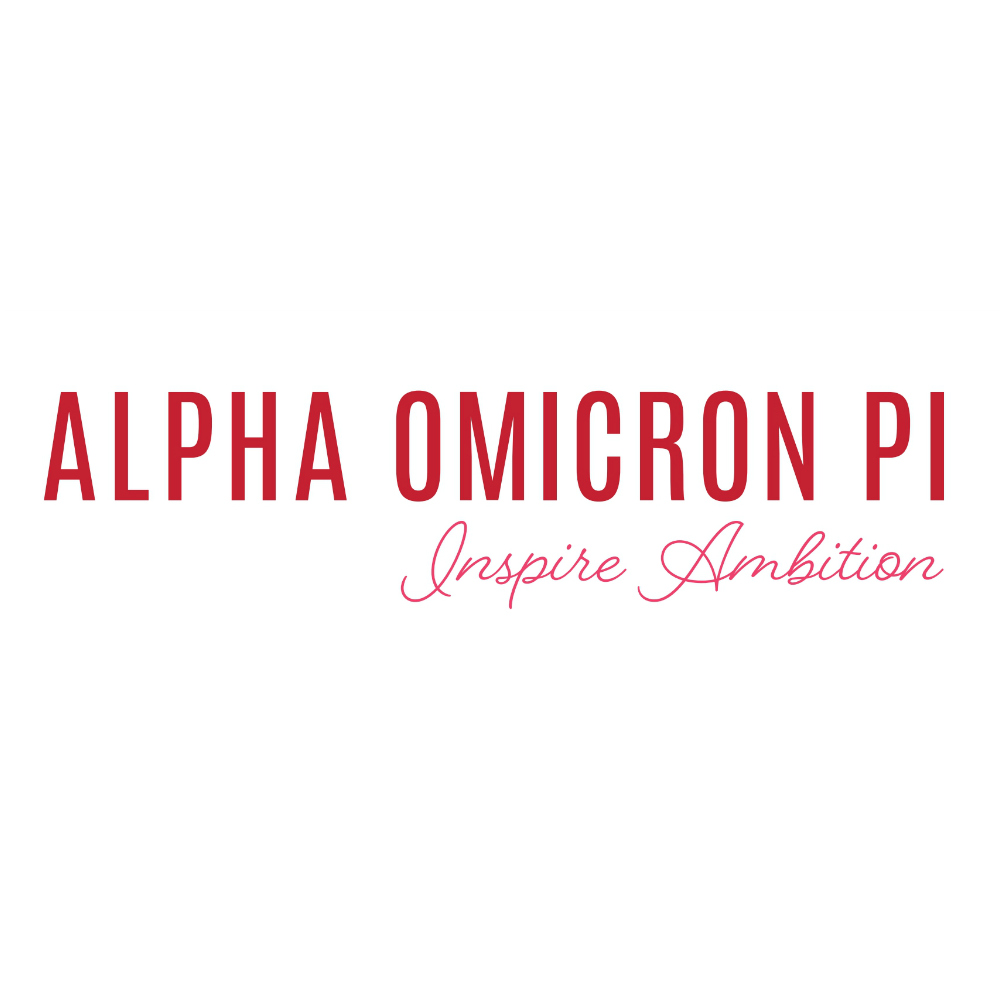
Alpha Omicron Pi Font
Fonts in UseAlpha Omicron Pi is a women's fraternity founded in 1897 with a mission to promote lifelong friendship, intellectual curiosity, and leadership. The organization is based on the principles of scholarship, philanthropy, service, and personal growth.
Alpha Omicron Pi's logo features a bold sans serif font Antonio Regular by Vernon Adams and a script font Beloved Script by Laura Worthington for the tagline "Inspire Ambition."